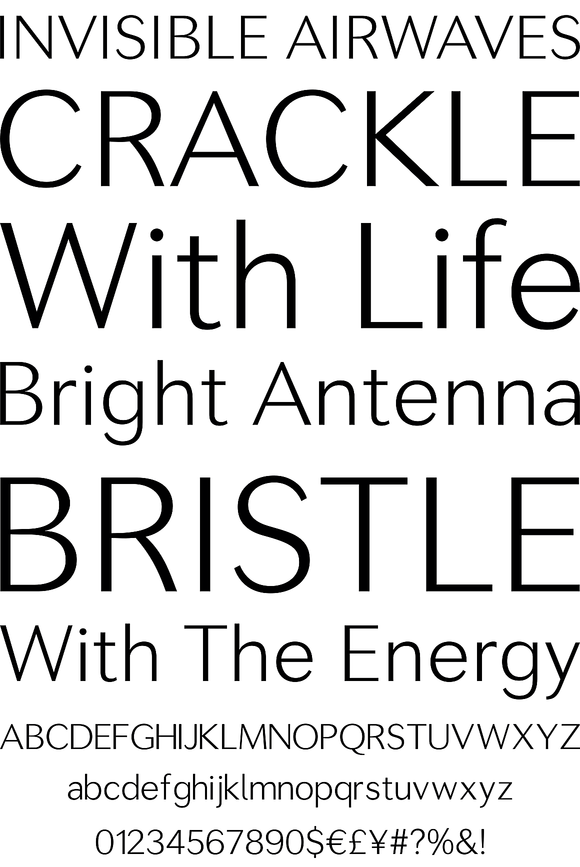
Seconda
Foundry: Durotype
Wait a second... Seconda. A sans serif with its own individuality. A typeface which combines character with legibility. A typeface which combines business with pleasure. Its moderate contrast and narrowing terminals give this typeface a gentle and sophisticated nature. Use it for books, reports, magazines, business letters — and relax. Use it for brochures, posters, signs, corporate identity projects — and enjoy. Seconda has sixteen styles, extensive language support, eight different kinds of figures, sophisticated OpenType features — so it's ready for advanced typographic projects.For text and display use. When using Seconda in small text sizes, it will be a reliable and legible text face. When using it in big display sizes, it will show its refined details. Designed by Ben Blom in 2010.